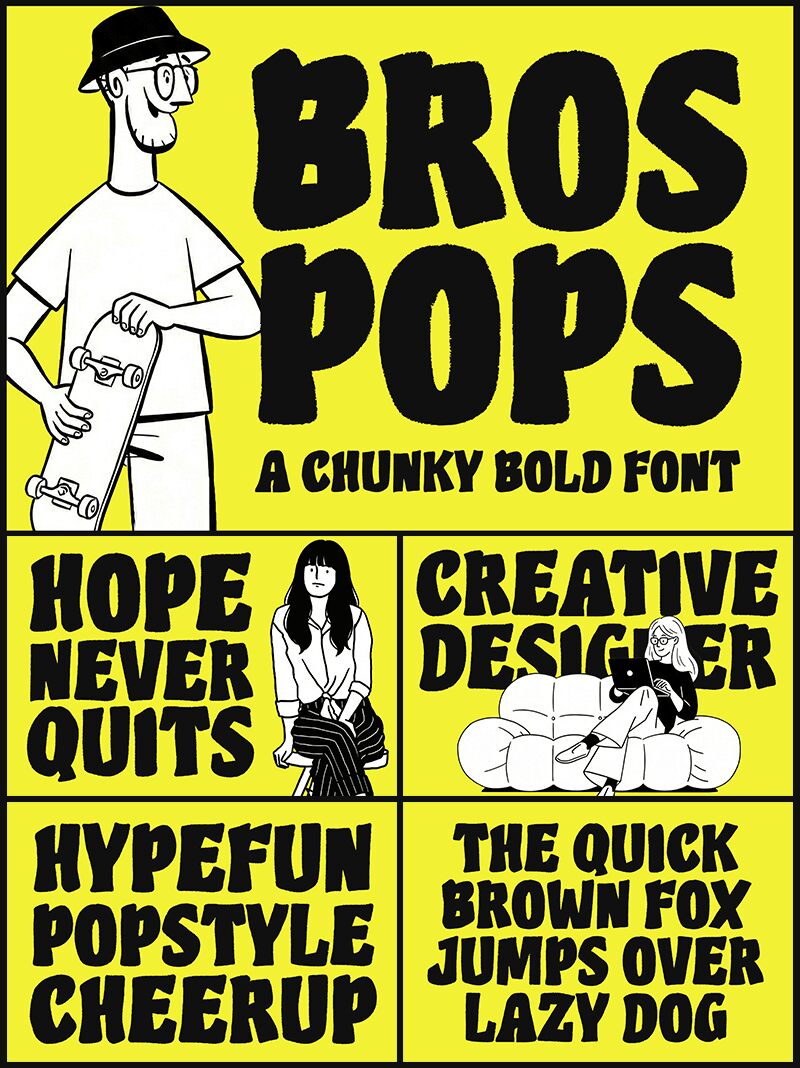
Bros Pops font designed by Blankids is a fancy and dynamic free font. With a playful and eye-catching appeal, it offers a modern yet approachable look that makes it incredibly versatile. Bold and expressive, it captures attention with its energetic and informal vibe, ideal for a wide range of creative endeavors.
An excellent choice for branding, posters, social media graphics, product packaging, business cards, and advertising materials, this font works well in any setting that requires a bold statement. Websites, blogs, magazines, and book covers can also benefit from its dynamic and engaging flair.